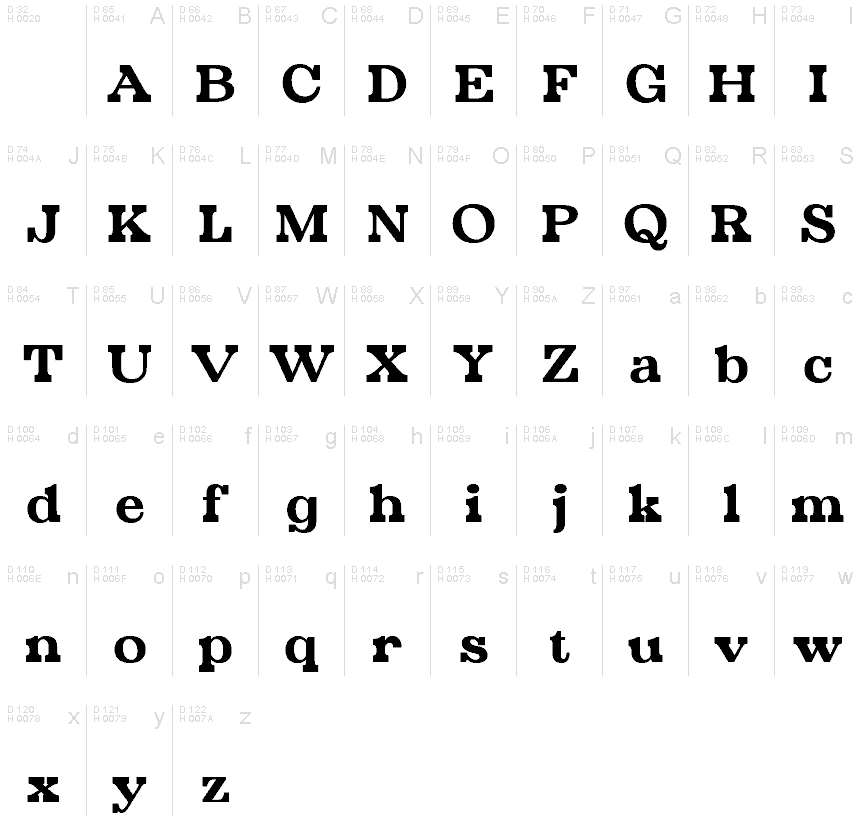
Lunavie Demo Regular
Lunavie font by Craft Supply Co is an elegant expanded bold free serif font with a distinctive and authoritative vibe. The professional style which is inspired by modern serifs of the 18th century features both sophistication and classic appeal. It makes use of smooth curves, bold lines, and playful round letters.
Various applications of the font include packaging design, website headings, presentations titles/texts, printing on t-shirts or fabric in general, comic books, brochures/flyers/pamphlets design plus letterheads amongst others.